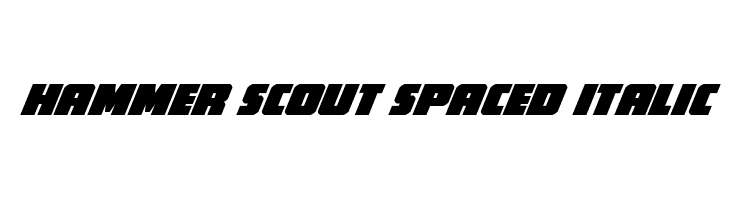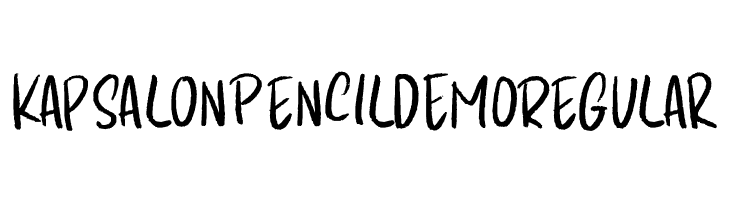
A playful, hand-drawn font with irregular strokes and a whimsical style.
A playful, handwritten font with bold, brush-like strokes and whimsical beard-themed glyphs.
A bold, italicized font with dynamic slanted characters and thick strokes.
A modern decorative serif font with geometric accents and artistic flair.
A bold, angular font with a modern, industrial style and high contrast.
A bold, italicized font with a futuristic halftone effect and geometric design.
A bold, outlined, italic font with a modern, dynamic style.
A bold, italicized font with a dynamic, modern style and tight character spacing.
A sharp, condensed, and italicized font with high contrast, ideal for dramatic designs.
A bold, condensed, and italic font with high contrast and a modern, dynamic style.